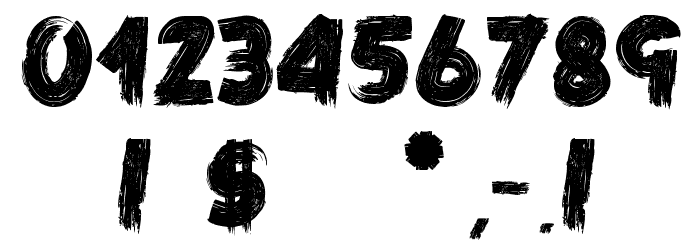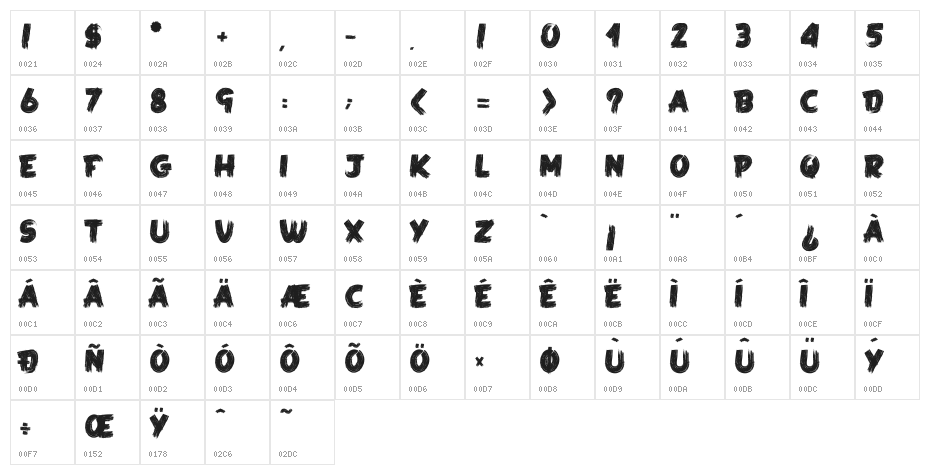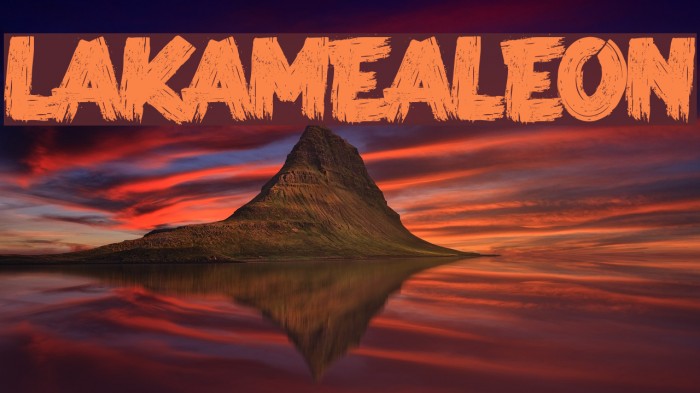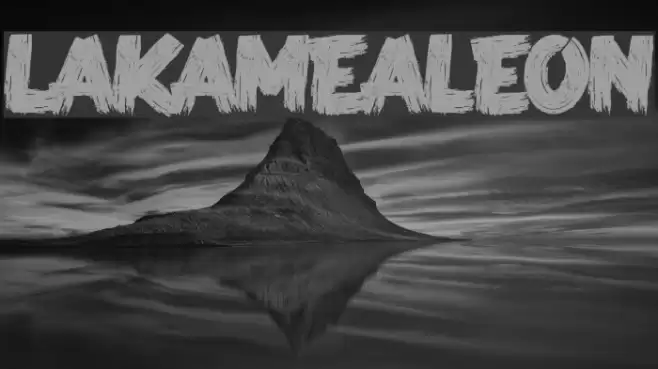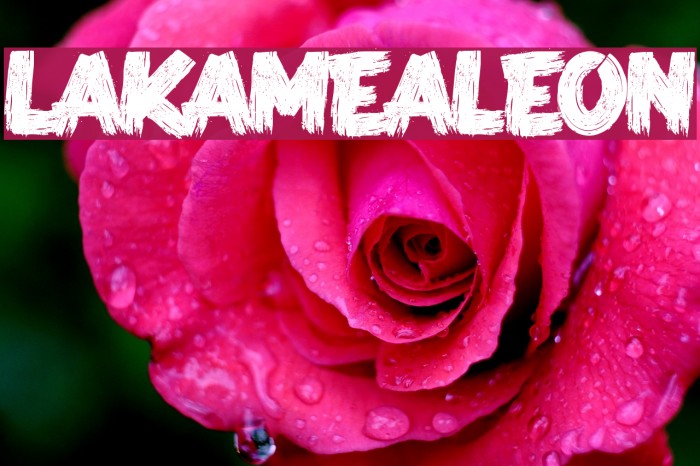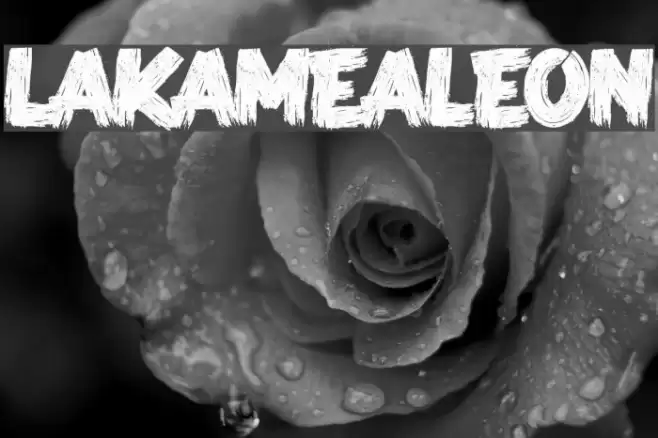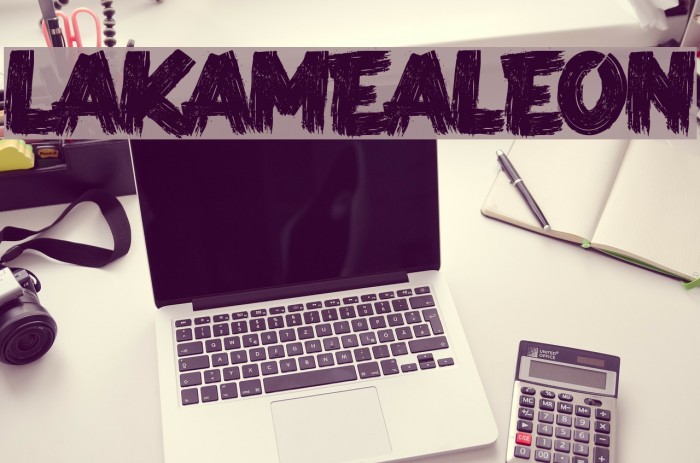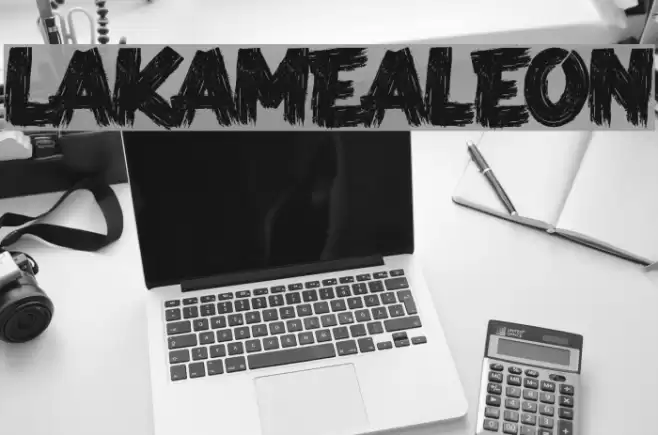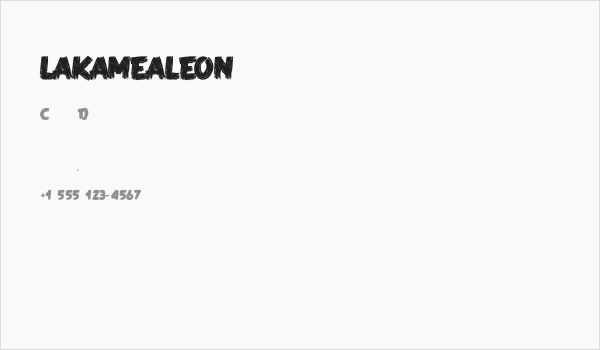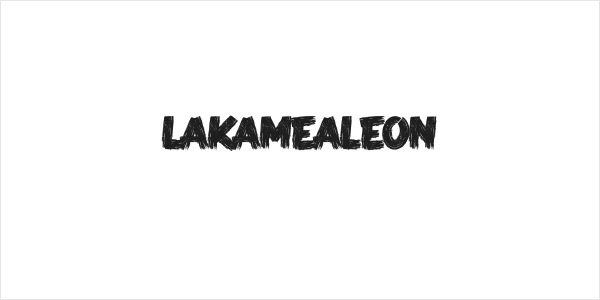
LAKAMEALEON Font
LAKAMEALEON Description
This font features a bold, textured style that mimics the appearance of brush strokes. Each character is filled with dynamic, uneven lines that give it a sense of movement and energy. The uppercase letters are robust and commanding, while the numbers and special characters maintain the same artistic flair. The font's rough edges and irregularities contribute to its unique, handcrafted look, making it stand out in any design. Its artistic nature makes it ideal for projects that require a creative and bold statement.
| Overall Style | Artistic, Bold, Textured |
| Use Case | Headlines, Posters, Artistic Designs |
| Proposed Projects | Ideal for posters, album covers, branding, and any project needing a bold, artistic touch. |